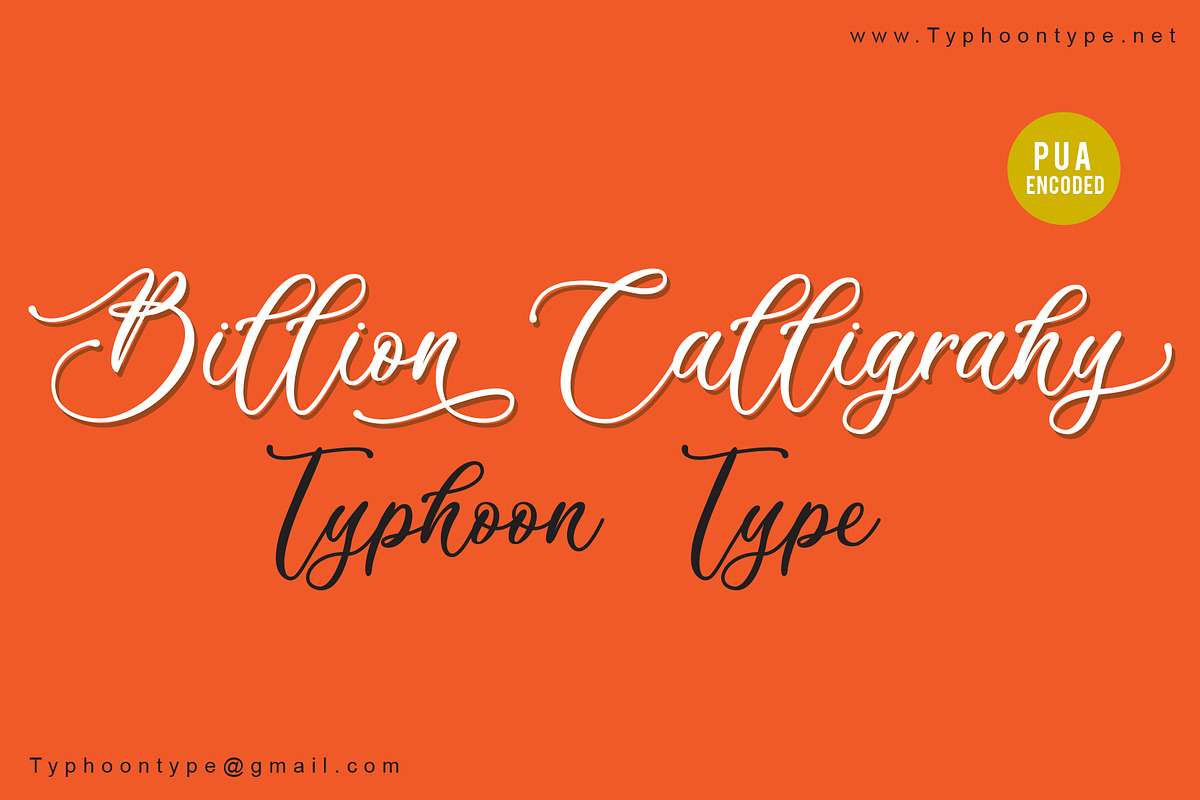
Billion Calligraphy font
Billion Calligraphy This Font perfect for logos, name tag, advertising, product packaging, clothing, social media & greeting cards.
Why Billion Calligraphy font is worth a look
Billion Calligraphy font by TyphoonStudio fits naturally into Branding, posters, packaging, typography.